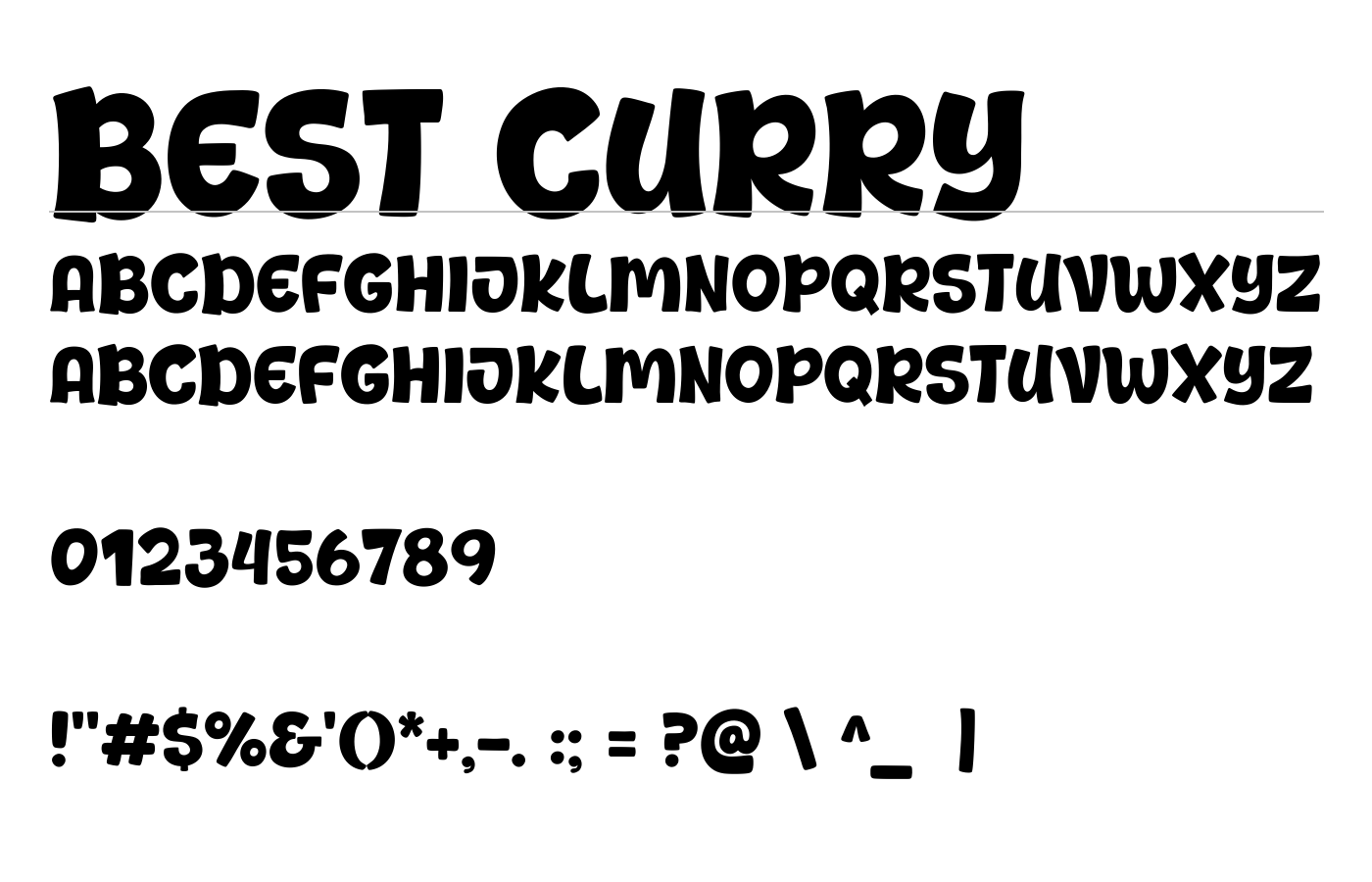
Best Curry Font is a bold, playful sans serif typeface with rounded, friendly letterforms that give it a casual and approachable vibe. Its chunky weight and slightly irregular shapes make it ideal for fun, informal designs such as children’s products, food branding, or lively headlines where a cheerful, inviting tone is needed. This font works great for logos, posters, and packaging that want to convey warmth and personality with a modern, whimsical touch.
Best Curry Font
About Best Curry Font
| Font family | Best Curry Font |
| Designer | Khurasan & Jalembe |